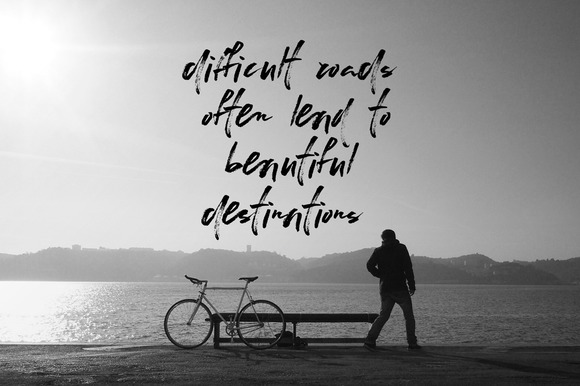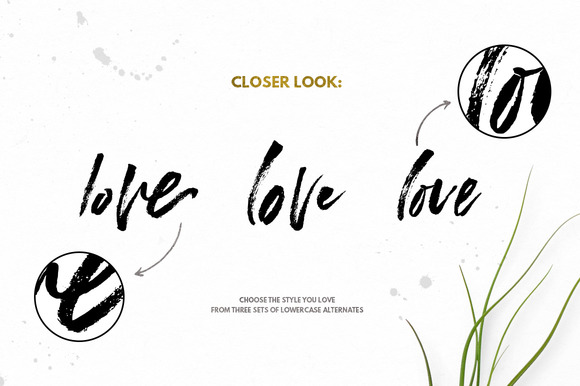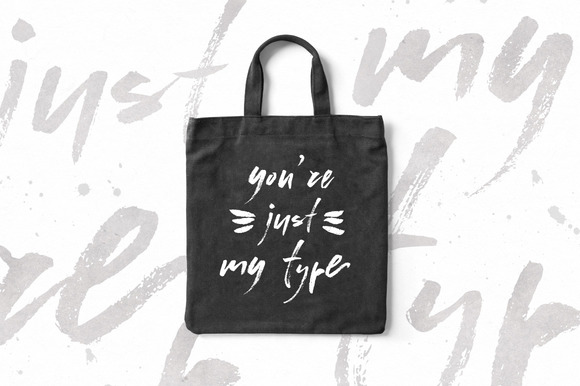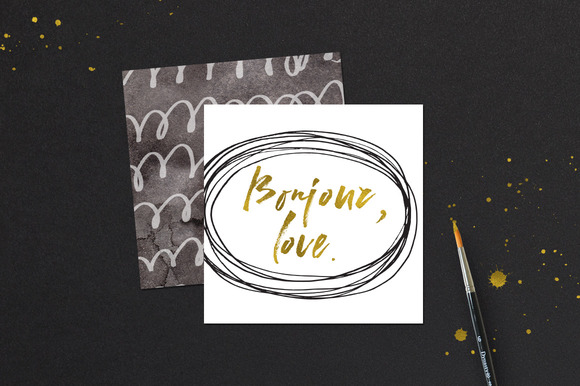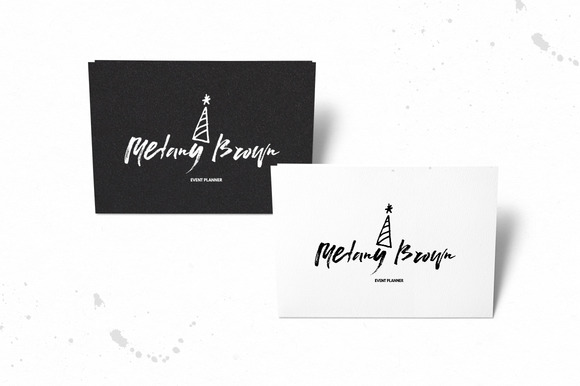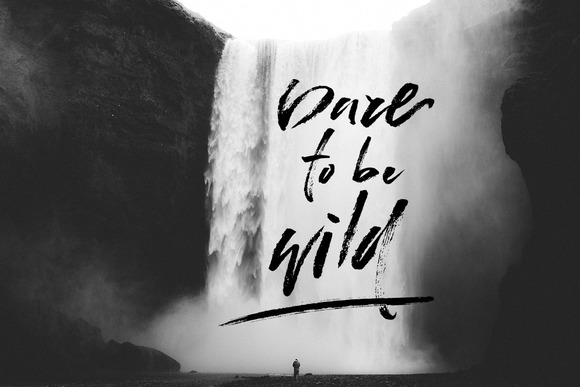
Introducing Density Font: A Personal Handwritten Script with a Touch of Emotion
In the world of typography, fonts play a crucial role in conveying emotions and setting the tone for a brand or design. For designers and crafters looking for a unique and expressive font to elevate their projects, Density Font is an excellent choice. This personal handwritten font is filled with style and emotion, making it perfect for a wide range of applications.
What is Density Font?
Density Font is a dry brush font that boasts a distinctive, uneven character. This handwritten script is designed to create ‘living’ text that stands out from the crowd. The font’s irregularities give it a personal touch, making it ideal for designers who want to add a human element to their work.
Key Features of Density Font
- Handwritten style: Density Font is a genuine handwritten script, crafted with love and care to ensure that each character is unique and full of personality.
- Dry brush effect: The font features a dry brush effect, which gives it a textured, organic look that’s perfect for designs that require a touch of whimsy.
- Uneven characters: The characters in Density Font are intentionally uneven, creating a sense of movement and energy that’s hard to find in more traditional fonts.
- Emotional connection: The font’s emotional quality makes it perfect for designs that require a personal touch, such as greeting cards, invitations, and social media graphics.
Use Cases for Density Font
Density Font is versatile and can be used in a variety of design projects, including:
- Branding and packaging: Add a personal touch to your brand’s packaging and marketing materials with Density Font.
- Social media graphics: Create engaging social media graphics that stand out from the crowd with Density Font.
- Greeting cards and invitations: Use Density Font to create beautiful, one-of-a-kind greeting cards and invitations.
- Blogging and writing: Add a touch of personality to your blog or written content with Density Font.
Tips for Using Density Font Effectively
To get the most out of Density Font, follow these tips:
- Use it sparingly: Because of its unique character, Density Font is best used sparingly. Use it for headings or key phrases to add emphasis and create visual interest.
- Experiment with colors: Density Font looks great in a variety of colors, so don’t be afraid to experiment and find the perfect hue for your design.
- Pair it with other fonts: Density Font pairs well with other fonts, so try combining it with a clean sans-serif font for a striking contrast.
Density Font is a unique and expressive handwritten script that’s perfect for designers and crafters looking to add a personal touch to their work. With its dry brush effect, uneven characters, and emotional quality, Density Font is sure to elevate your designs and make them stand out from the crowd.
Whether you’re a seasoned designer or a crafter looking for a special font to use in your projects, Density Font is an excellent choice. So why not give it a try and see the difference it can make in your designs?